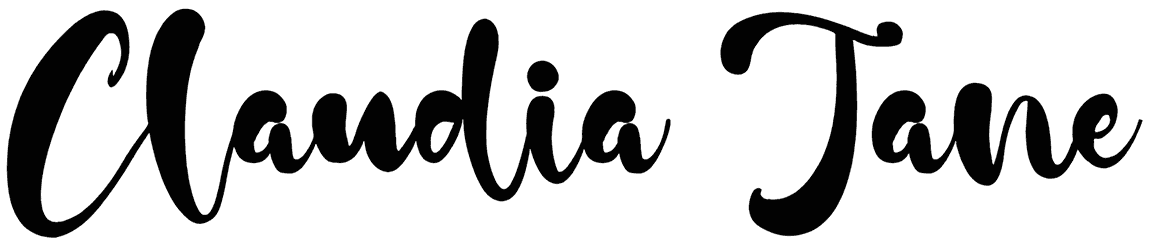
Claudia Jane Font
Have you ever been involved in making an intimate look for wedding invitations, cards, album covers, posters, or other illustrations? Well, here all of your needs, including inventing or designing presentations, would be fulfilled in high quality yet freebie chance.
A cursive font named Claudia Jane comes up to push you to run a typography that guarantees your thriving. Nevertheless, this masterpiece proposes a mixture of both uppercase and lowercase letters to count on them for an informal and comfy design.